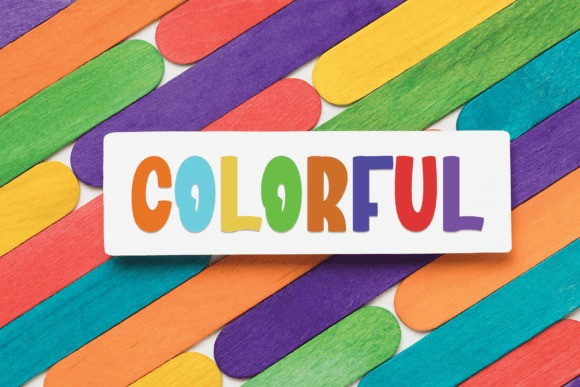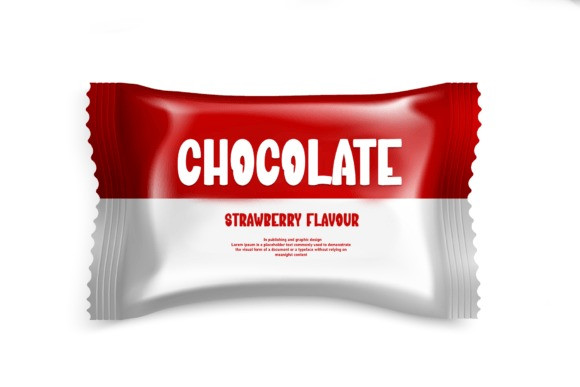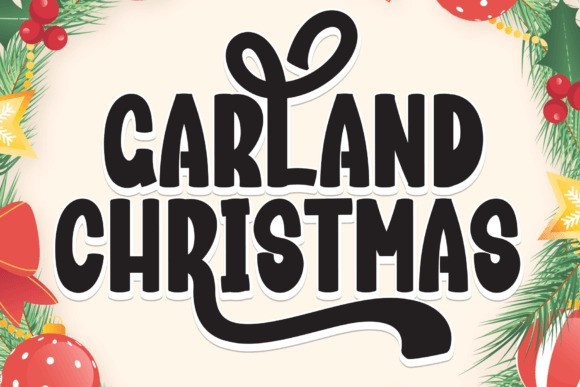
Garland Christmas Font
Garland Christmas Font is a cute and charming display font. Whimsical and a bit quirky, this font will brighten up each of your designs. Add it confidently to your projects, and you will love the results.